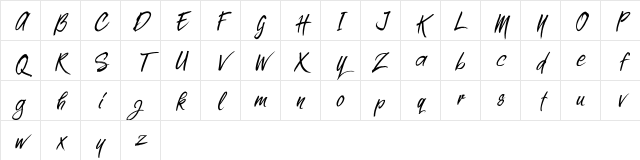
High Sylvester Italic is a composed and adaptable typeface that performs quietly and consistently across a wide range of design contexts. The slanted form adds forward momentum and visual energy.
Pro Tip: Use High Sylvester Italic for emphasis, pull quotes, and subheadings where its slanted energy can add rhythm to the layout.